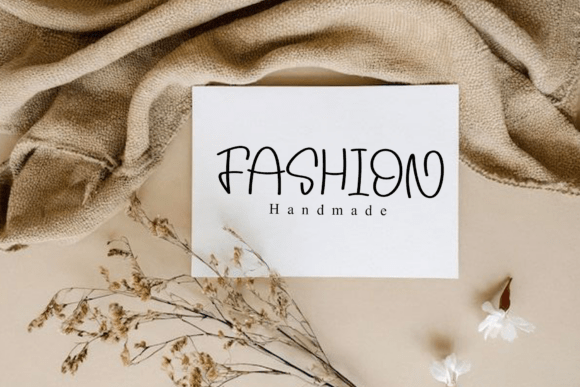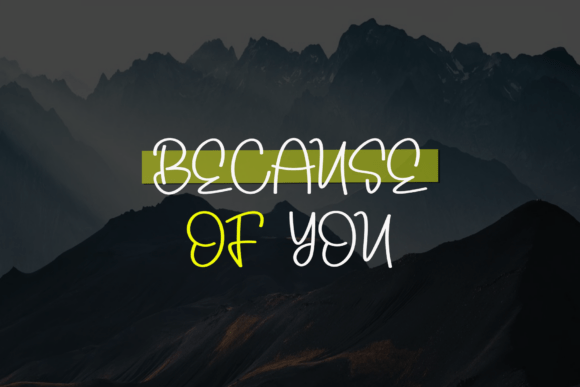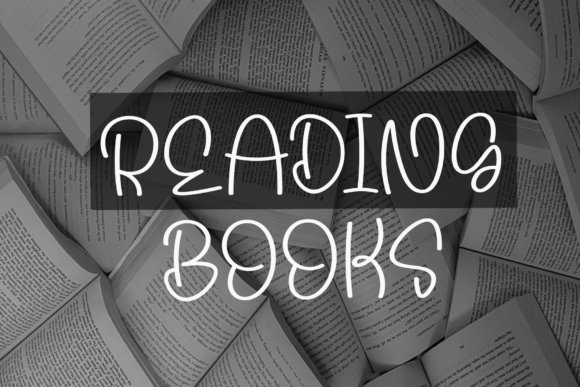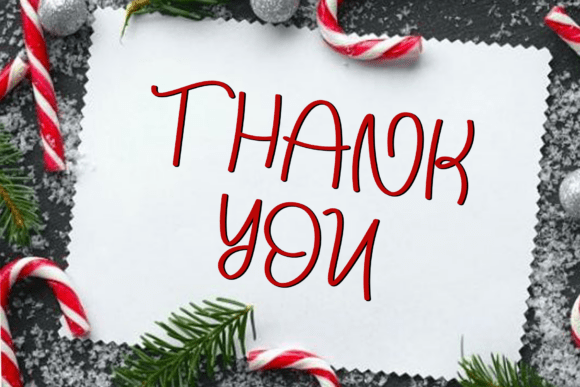
Introduction to Share Designer Font
As designers, we’ve all been there – staring at a blank canvas, waiting for that perfect idea to strike. And then, it happens. A burst of creativity, a flash of inspiration, and suddenly our design project is taking shape. But what makes the difference between a good design and a great one? Sometimes, it’s all about the little things – like the perfect font.
Enter the Share Designer Font, a stunning and elegant handwritten script that’s about to become your new go-to design resource. With its flowing lines, heart-shaped swashes, and smooth curves, this high-quality font is perfect for adding a touch of romance and professionalism to any creative project.
Key Features of Share Designer Font
- Unique, versatile font style suitable for a wide range of design applications.
- Transparency option for the background, allowing for seamless integration into designs with complex backgrounds.
Honest Review: Share Designer Font
I recently had the chance to experiment with the Share Designer Font, and I must say it’s a solid addition to any designer’s toolkit. One of the standout features of this font is its ✨ high quality, making it perfect for a wide range of creative projects.
Share Designer Font
The Share Designer Font is a free download design resource ideal for creative projects. This high-quality font is perfect for designers and artists looking for a versatile and elegant typeface.
Tips for Getting the Most Out of Share Designer Font
1. Use Share Designer Font with a transparent background to create a clean and minimalist design.
2. Experiment with different font sizes and styles to add depth and visual interest to your design.
3. Combine Share Designer Font with other high-quality design resources to create a cohesive and professional design.
Common Use Cases for Share Designer Font
1. Business cards and letterheads
2. Brochures and flyers
3. Social media graphics and advertisements